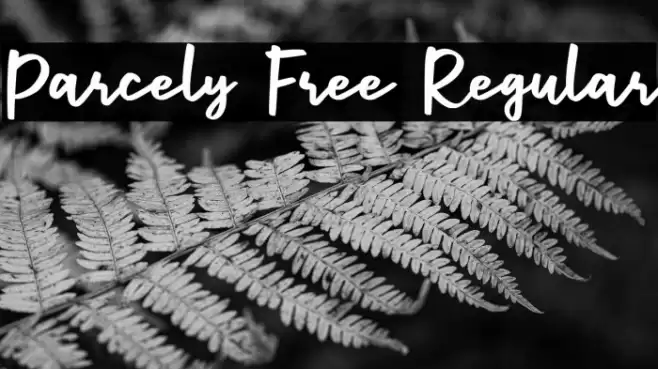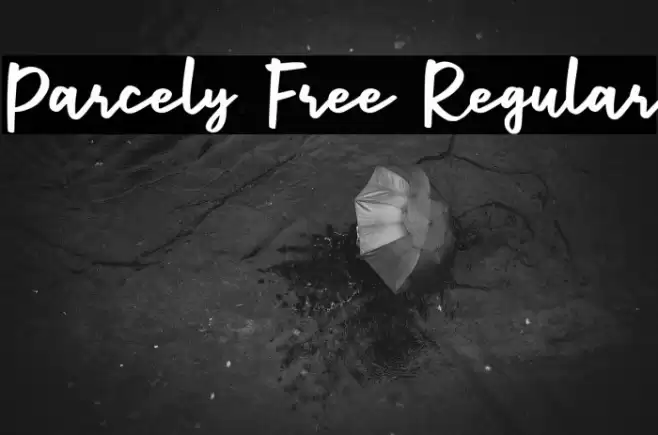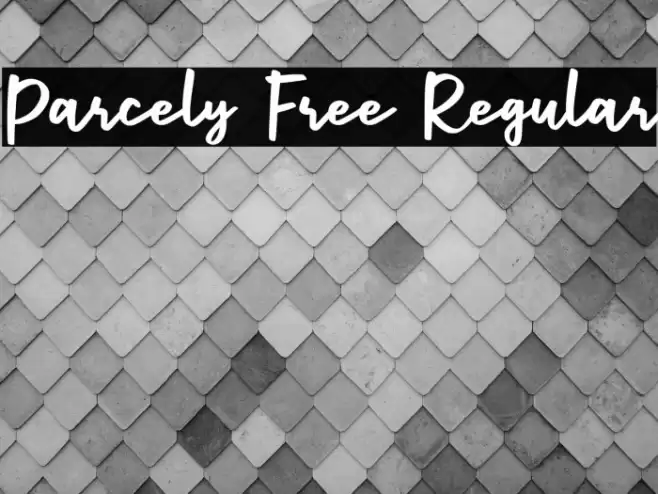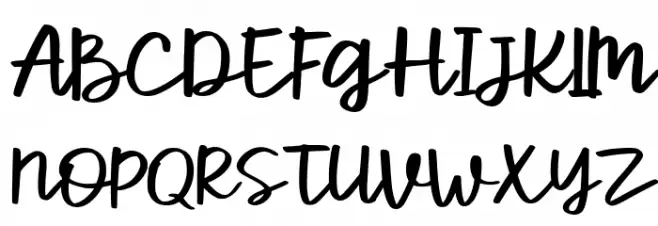
Parcely Free Regular Font
Parcely Free Regular Description
This font features a bold and expressive handwritten style, characterized by its fluid and dynamic strokes. The letters are interconnected, creating a sense of movement and continuity. The uppercase and lowercase letters maintain a consistent style, with rounded edges and a slightly slanted orientation, giving it a casual yet elegant appearance. The font's thick strokes and smooth curves make it highly legible, even at smaller sizes. It exudes a friendly and approachable vibe, making it suitable for a variety of design projects that require a personal touch.
A bold, expressive handwritten font with fluid, interconnected strokes from Regular fonts.
- Font: Parcely Free Regular
- Proposed Projects: Ideal for greeting cards, invitations, branding, social media graphics, and personal projects.
- Use Case: Logos, Headlines, Display text